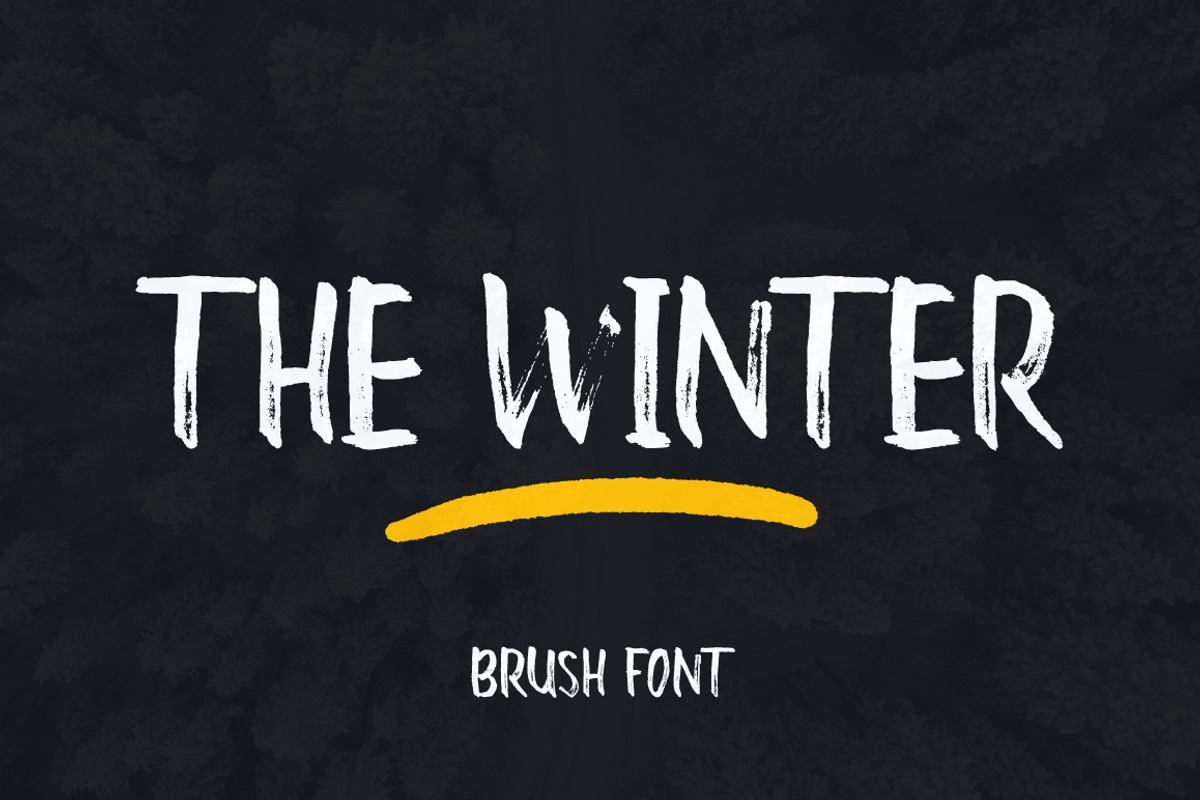
The Winter Brush Font Free Download is a cozy, hand-painted typeface that brings warmth and personality to your seasonal designs. With its natural brush strokes and flowing texture, this font is ideal for holiday cards, winter promotions, handwritten quotes, and creative branding that needs a touch of snowy charm.
Inspired by frosty mornings, pine-scented air, and heartfelt moments, The Winter Brush Font Free Download adds an authentic, handmade feel to any project. Whether you're designing festive packaging, Instagram posts, event flyers, or winter-themed merchandise, this font delivers a warm, personal touch that connects.
Its expressive movement makes it perfect for both bold headlines and emotional storytelling. Pair it with minimal backgrounds or wintery illustrations, and you've got a look that feels both elegant and heartfelt.
Let your typography wrap around your designs like a cozy scarf. The Winter Brush isn't just a font—it’s a whole vibe.